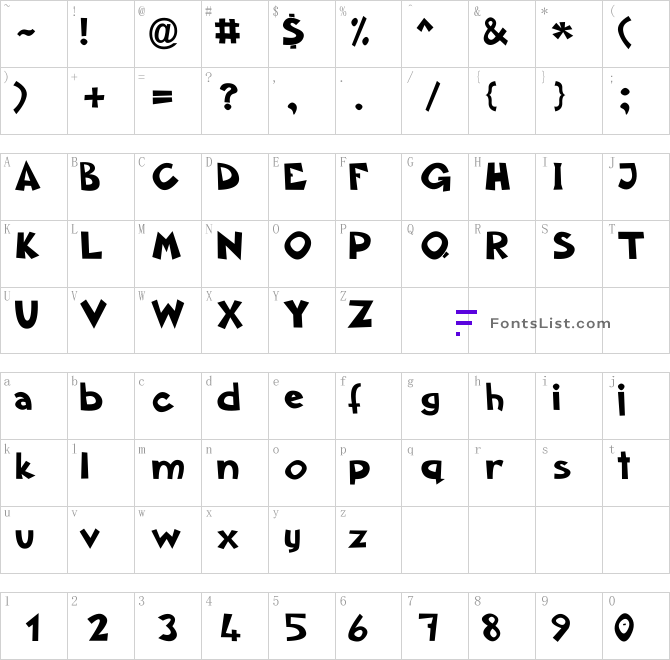
- Font Name:Aklatanic TSO
Aklatanic-TSO.ttf is a very beautiful artistic font, Aklatanic-TSO.ttf is widely used in the design and printing of various books and pictures,Aklatanic-TSO.ttf has a strong visual impact,Aklatanic-TSO.ttf is a commonly used font in newspapers, magazines and books, and is used in posters, e-commerce Poster design, store design, logo design, font design and other fields.Aklatanic-TSO.